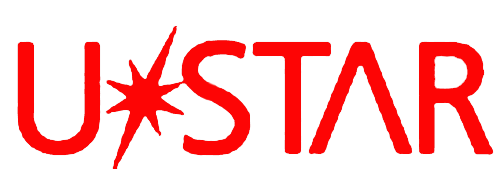
Can anyone help me to design this font. I have a image only of this font. It is attached with this post.
It's not really designing the font, more like stealing the font since you have the image. Unless you created the image as well.
There are plenty of skinny sans serif typefaces out there to choose from.
It's not really that unique dude. The A is just an inverted V...
The font looks familiar. If you want to use it, then search the font websites until you find this one.
Thank for your idea. But i want to question: how to design the star. Can you design it for me, please. And then save it with .png extention.
Your best bet would be to draw it yourself in Illustrator… and if you don't have that try something ike Inkscape (Opensource and free)…